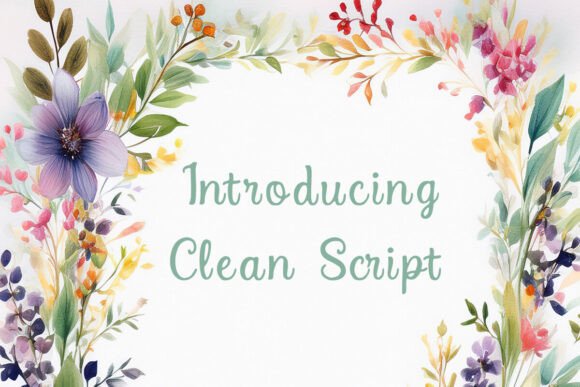
Discover the Elegance of Clean Script Font
You know that moment when a new font can completely transform your design project? The one where you envision your ideas coming to life, and every element falls into place? For designers, that moment is exactly what the Clean Script Font is all about. This versatile font was created to be the perfect companion for your crafting adventures, elevating your designs with a touch of elegance and character.
Whether you’re working on a t-shirt design, a sticker, or a magazine layout, the Clean Script Font seamlessly integrates into your project, adding a natural touch that’s hard to resist. With its simplicity and sophistication, it’s the perfect choice for designers looking to upgrade their social media content, craft unique greeting cards, or create stunning posters. The Clean Script Font is a game-changer in the world of font artistry, and it’s about to become your new favorite companion.
Clean Script Font Key Features
- Font Style: Clean Script is a modern, elegant script font designed for various applications, including digital and print media.
- Unique Characteristics: Clean Script features a unique blend of traditional calligraphy and modern design elements, making it perfect for creating elegant and sophisticated typography.
Clean Script Font Review
First impressions are everything, and Clean Script Font certainly delivers. ✨ The elegant, flowing lines and soft curves evoke a sense of sophistication and refinement, making it perfect for high-end branding, packaging, and advertising.
One of the standout features of Clean Script Font is its versatility. ✨ It can be used for a wide range of applications, from titles and headings to body text and even logos. Its clean, modern aesthetic makes it an excellent choice for digital and print materials alike.
- ⚠️ Limited character set: Clean Script Font may not be suitable for extended texts or large blocks of text due to its flowing, cursive nature.
- ⚠️ Not ideal for small font sizes: The font’s delicate lines and curves may become difficult to read at very small font sizes, making it less suitable for mobile or web applications.
Overall, Clean Script Font is a beautiful, high-end font that excels in situations where a touch of elegance and sophistication is required. While it may have some limitations, its versatility and unique aesthetic make it a valuable addition to any designer’s toolkit.
Use Clean Script Font for:
1. Creating eye-catching headlines and titles.
2. Adding a touch of elegance to your designs.
3. Creating a consistent brand identity.
Remember to pair Clean Script Font with a clean and simple background to make the most out of its aesthetic appeal.
Alternatives to Clean Script Font for Designers
Carolyna Pro is a modern calligraphy font with elegant and refined lines. It’s perfect for formal invitations, wedding designs, and luxury branding. It offers a more luxurious and high-end feel compared to Clean Script Font, which is more minimalist and clean.
Great Vibes is a beautiful, handwritten font with a mix of modern and vintage elements. It’s ideal for creative projects, such as blog posts, social media graphics, and advertising materials. Great Vibes has a more playful and expressive feel compared to Clean Script Font, which is more neutral and clean.
Alex Brush is a elegant, brush script font with a touch of sophistication. It’s perfect for high-end branding, luxury packaging, and creative projects. Alex Brush has a more refined and polished feel compared to Clean Script Font, which is more casual and easy-going.